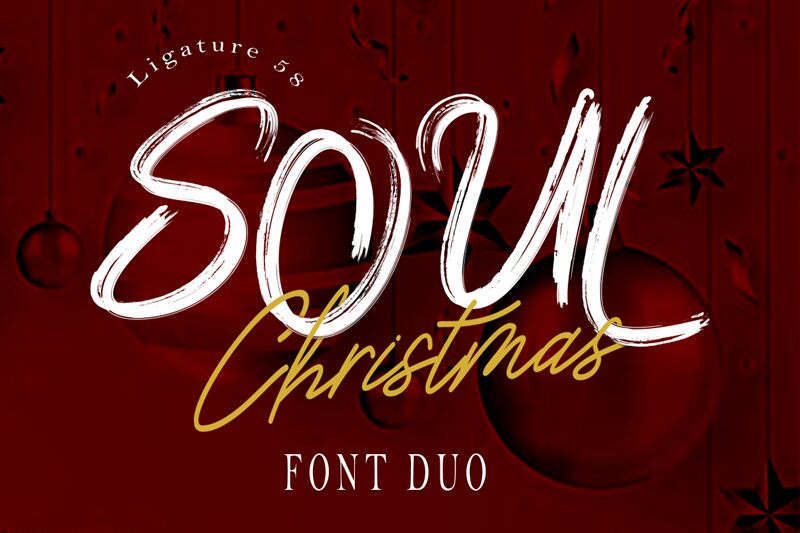
SOUL
SOUL, a light brush script typeface designed by WinType and Winarko, is perfect for creating dynamic and unique designs. Ideal for logos, posters and invitations, SOUL will make your projects stand out from the crowd.